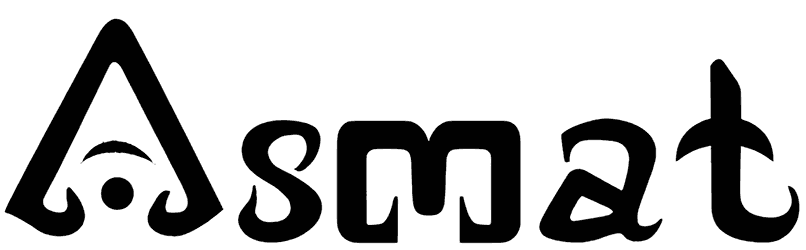
Asmat Font
Designed byJustin Prawiro Bono
With geometric, funny, and Asian outward, coming up to catch everyone’s attention to acquire pleasure, Asmat serves as your savior to pull out your illustration from the tedious and typical form.
This tribal font with a dynamic tone but has a bit of an ancient inflection to make your games, posters, and movie titles look lively. Grab this fancy font, and you no longer are resigned to spending the better part of your time starting to create one from scratch.
This is a font made by Jason Halim and Justin Prawiro from Petra Christian University